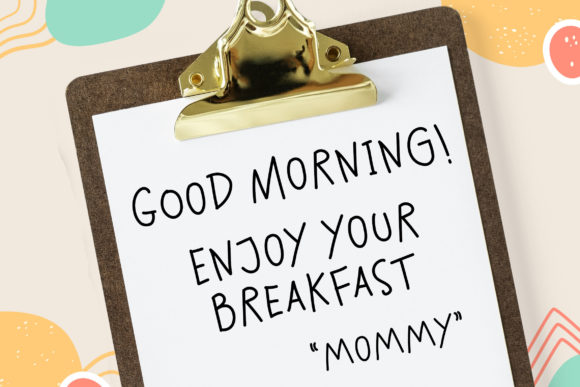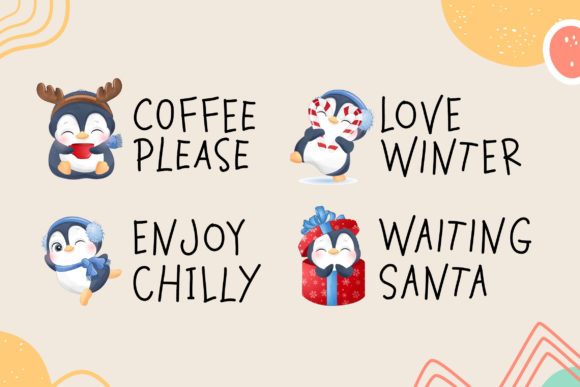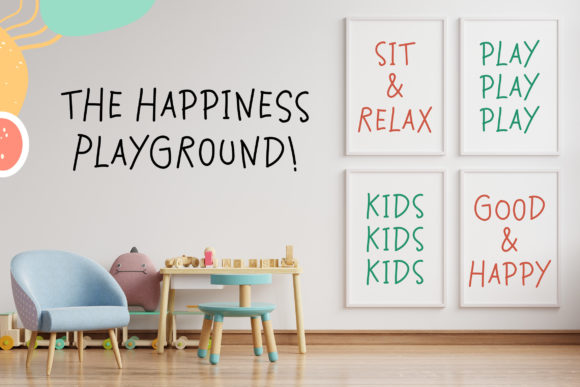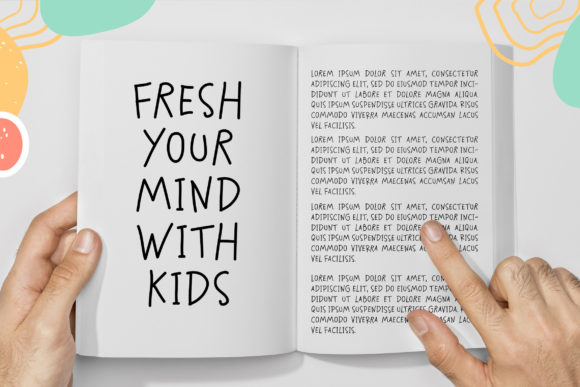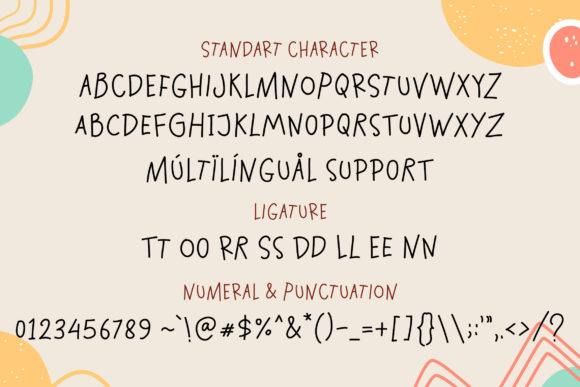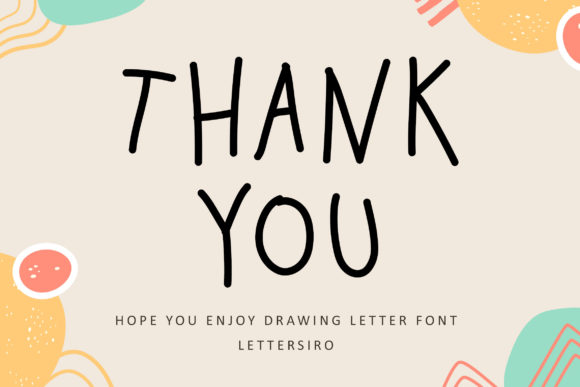
The Charm of Drawing Letter Font: A Designer’s New Best Friend
This adorable, handwritten font has a charm that instantly elevates any design. In this article, I’ll share my experience with Drawing Letter Font, its features, and how to make the most of it in your designs.
- ✨ The authentic, chalkboard look that adds a personal touch to any design
- ✅ Simple and easy to read, making it perfect for teaching materials and quotes
- 🎨 Versatile and works well for a variety of design projects, from invitations to social media graphics
While Drawing Letter Font is a beautiful addition to any design, there are a few things to keep in mind:
- ⚠️ Limited character set, which may not be suitable for complex designs or extensive text
- 🤔 May not be the best choice for very formal or corporate designs, as it has a more casual, handwritten feel
The Story Behind Drawing Letter Font
While the true story behind Drawing Letter Font may be unknown, it’s easy to imagine that it was created by a designer who wanted to capture the charm of handwritten letters on chalkboards. Perhaps they were inspired by vintage advertisements, children’s book illustrations, or the imperfections of handwriting. Whatever the inspiration, the result is a font that’s both nostalgic and modern.
| Font Name | Drawing Letter Font |
Q: What type of designs is Drawing Letter Font best suited for?
A: Drawing Letter Font is perfect for designs that require a personal, handwritten touch, such as chalkboard quotes, teaching materials, invitations, and social media graphics.
Q: Is Drawing Letter Font available in different languages?
A: The character set of Drawing Letter Font may be limited, but it’s possible to find language-specific versions or alternatives that support your language of choice.